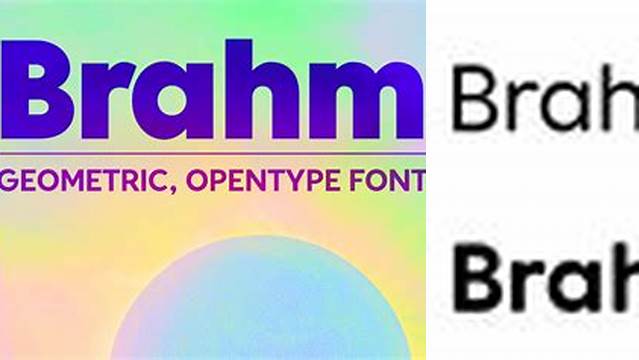
Hey guys! Are you on the hunt for a font that’s both modern and friendly? Look no further than Brahma Rounded! This typeface is super versatile, perfect for everything from logos to website designs. In this article, we're diving deep into where you can find a Brahma Rounded font free download, how to use it, and even explore some cool alternatives. Let's get started!
1. What is Brahma Rounded Font?
Before we jump into the Brahma Rounded font free download options, let's talk about what makes this font so special. Brahma Rounded is a contemporary sans-serif typeface known for its rounded terminals and clean lines. This gives it a soft, approachable feel, making it ideal for designs that need a touch of warmth and modernity. It's a fantastic choice for branding, web design, and even print materials. Think of it as the friendly neighbor of fonts – always reliable and easy on the eyes. Whether you're designing a logo, crafting a website, or putting together a presentation, Brahma Rounded can add that perfect touch of polish and personality.
2. Key Features of Brahma Rounded
So, what exactly makes Brahma Rounded stand out from the crowd? Well, a few key features make this font a designer's favorite. First off, its rounded terminals give it a super soft and approachable vibe, which is great for brands that want to come across as friendly and trustworthy. The clean lines ensure readability, making it perfect for both headlines and body text. Plus, Brahma Rounded often comes in multiple weights, from light to bold, giving you tons of flexibility in your designs. It’s like having a Swiss Army knife for typography! The versatility of Brahma Rounded allows it to adapt to various design needs, ensuring that your message is conveyed clearly and stylishly. Whether you are aiming for a minimalist aesthetic or a more playful look, this font can be your go-to choice.
7. Alternative Fonts to Brahma Rounded
Sometimes, you might find that Brahma Rounded isn’t quite the right fit for your project, or you might want to explore similar fonts to add variety to your designs. No worries, there are plenty of alternatives out there! Fonts like Montserrat, Nunito, and Lato offer a similar clean, rounded aesthetic and are often available for free on Google Fonts. These alternatives can provide a fresh perspective while maintaining the friendly and modern feel you're going for. Experimenting with different fonts can help you discover unique combinations and enhance the overall visual appeal of your projects. Each alternative offers its own nuances, allowing you to tailor your typography to the specific needs of your design.
8. Montserrat: A Popular Alternative
One of the most popular alternatives to Brahma Rounded is Montserrat. This font, available on Google Fonts, boasts a similar geometric sans-serif design with a slightly more formal feel. Montserrat is super versatile and works well in a variety of contexts, from headlines to body text. It's a fantastic option if you want a font that’s both modern and highly readable. Plus, it comes in a wide range of weights and styles, giving you plenty of options to play with. Montserrat's clean lines and balanced proportions make it a reliable choice for projects that require a professional yet approachable look. Its extensive character set and multilingual support further enhance its usability in diverse design scenarios.
9. Nunito: Another Great Option
Another excellent alternative is Nunito, also available on Google Fonts. Nunito features rounded terminals, just like Brahma Rounded, but has a slightly more playful and softer character. It's perfect for designs that need a touch of warmth and friendliness. Nunito is especially popular for web design and mobile apps, thanks to its excellent readability on screens. With its smooth curves and even spacing, Nunito provides a comfortable reading experience, making it ideal for user interfaces and digital content. The font's approachable and inviting personality can help create a positive impression on your audience.